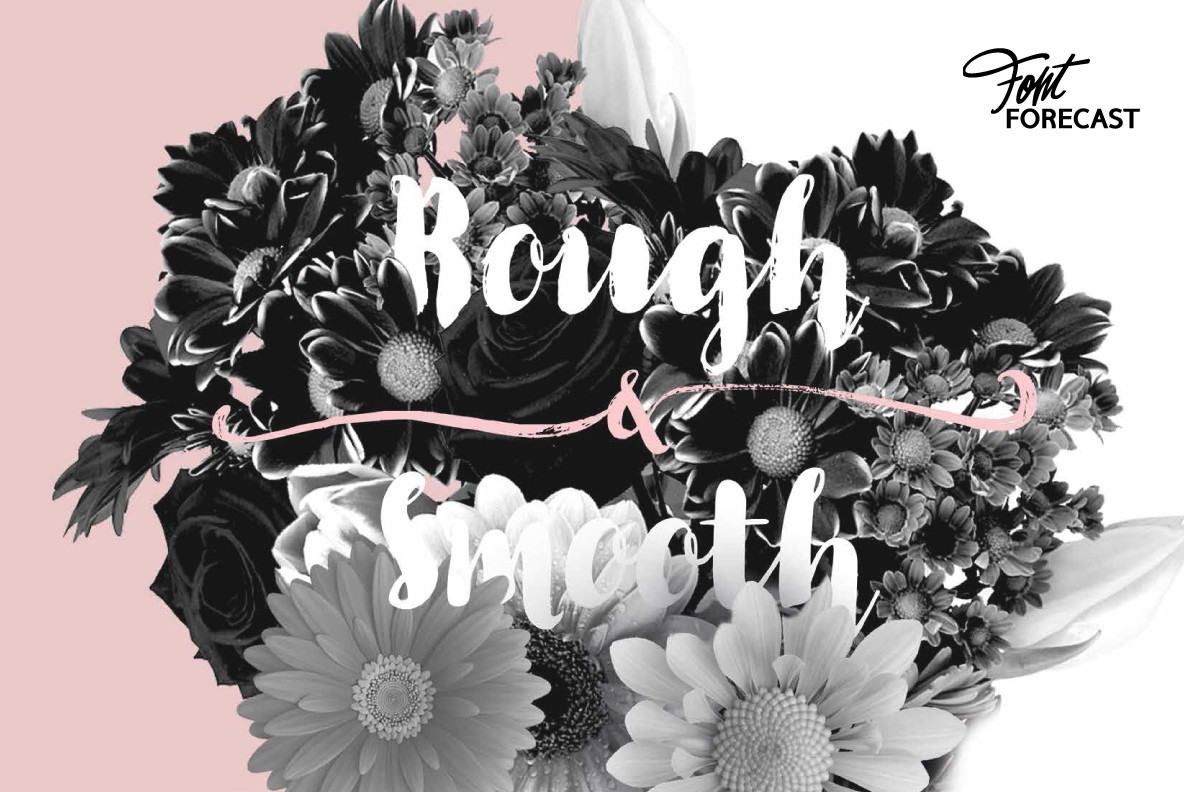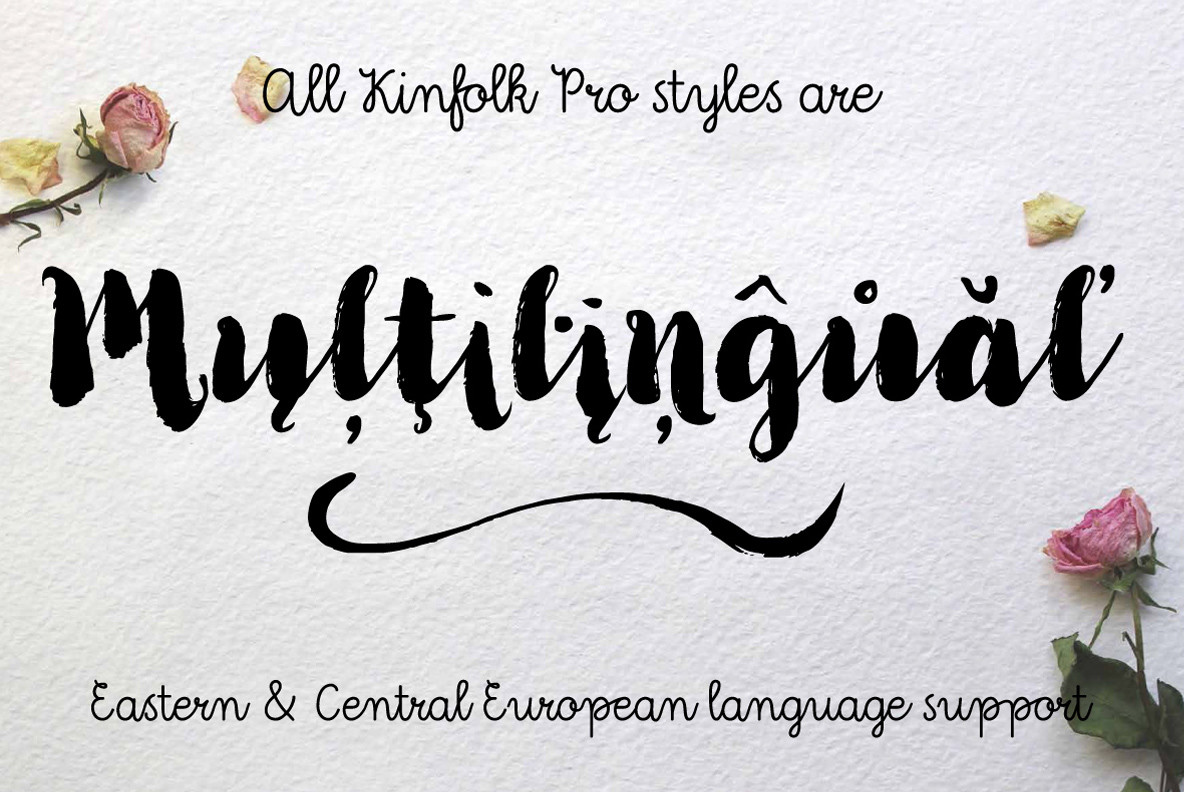
Kinfolk Pro Font
Kinfolk Pro is a font collection of six fonts. The main styles Rough and Smooth are extremely sturdy and bold brush fonts. As the name suggests the smooth style has clean, crisp contours and the rough version has the authentic strokes of a slightly dried out brush. Both versions have 606 glyphs and 4 alternate ornamented capital letters to play with, organized in stylistic sets.
With Discretionary Ligatures and Contextual Alternates activated you can access elongated swashes by simply typing +1 (+2, +3, +4, +5) in front of any letter and =1 (=2, =3, =4, =5) at the back. On top of that Kinfolk Pro Rough and Smooth have some extra stand alone swashes that can be accessed via the glyphs panel or by typing _1, _2 ,_3 _4 _5.
Kinfolk Pro Script is a fully connected script that goes together beautifully with the other styles. For the best connections, activate Discretionary Ligatures and Contextual Alternates.
Additionally there is Kinfolk Pro Ornaments for extra swashes, ink blobs and interesting strokes. Kinfolk Pro Arrows and Kinfolk Pro Flowers both offer 230 glyphs to further juice up your designs.